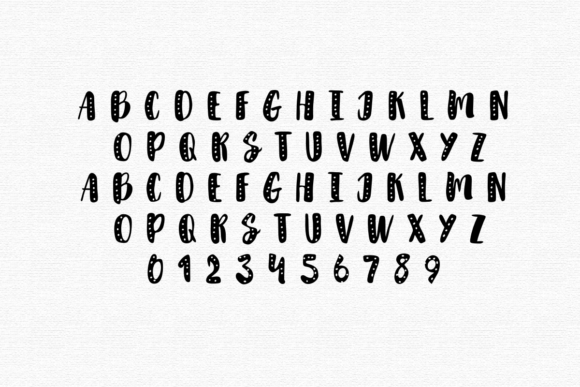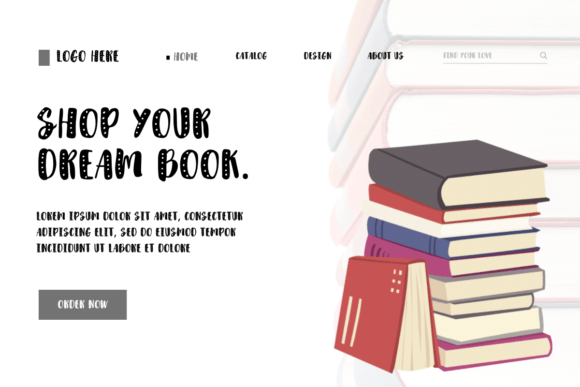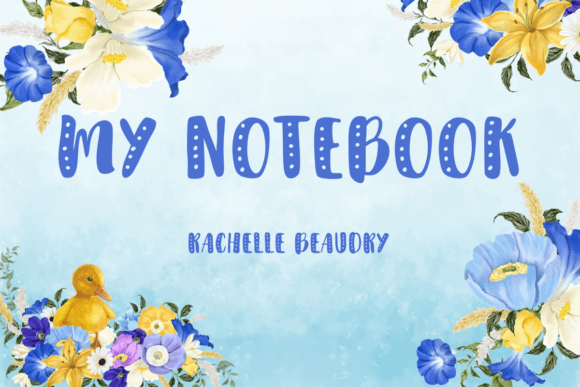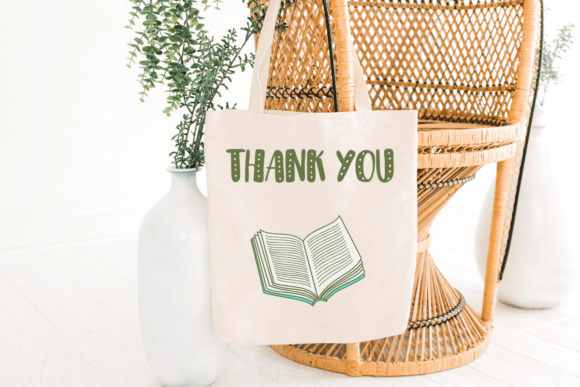
The Book Lover Font: A Designer’s New Best Friend
I’ll never forget the time I was working on a project for a client who wanted a custom greeting card design. I had all the elements ready – the graphics, the layout, and the text – but something was missing. The font I had chosen just didn’t have the right feel to it. It was then that I stumbled upon the Book Lover font, and let me tell you, it was love at first sight! 💕
As a designer, I can be quite particular about the fonts I use, and Book Lover quickly became my go-to for all sorts of creative projects. In this article, I’ll share with you what makes this font so special, its uses, and some practical tips on how to make the most of it.
What I Love About Book Lover Font
- ✨ Unique and eye-catching design: Book Lover has a distinct, elegant look that sets it apart from more common fonts.
- ✅ Versatility: Whether you’re working on a diary, a banner, or a social media post, this font fits right in.
While Book Lover is an amazing font, there are a few things to keep in mind:
- 🤔 Legibility at small sizes: Like many display fonts, Book Lover can get a bit tricky to read when scaled down too far. It’s best used at larger sizes for maximum impact.
- ⚠️ Limited availability of variations: Book Lover primarily comes in one style, which might limit your options if you’re looking for something with more variations.
One of the exciting aspects of Book Lover is its support for OpenType features. This allows you to access a range of glyphs and stylistic alternates that can add a personal touch to your designs. For example, you can use:
- Ligatures to combine letters for a unique look.
- Stylistic alternates to swap out letters for different versions.
- Glyphs to add special characters that enhance your design.
The Backstory of Book Lover Font
While the origins of Book Lover might not be well-documented, it’s easy to imagine a designer with a passion for reading and typography creating a font that embodies the elegance and charm of a well-loved book. Perhaps they wanted to create a font that would make digital text feel more like a page from a favorite novel.
| Font Name | Book Lover Font |
| Author | Nongyao |
Q: What is Book Lover font best used for?
A: Book Lover is ideal for projects that need a touch of elegance and personality, such as greeting cards, diaries, banners, and social media posts.
Q: Is Book Lover suitable for body text?
A: While Book Lover can be used for body text, it’s primarily designed as a display font. For longer texts, you might find it more comfortable to read a simpler font.
Book Lover font has quickly become a staple in my design toolkit, and I hope it finds a home in yours as well. Its unique charm and versatility make it perfect for a wide range of creative projects. Happy designing! 🎨